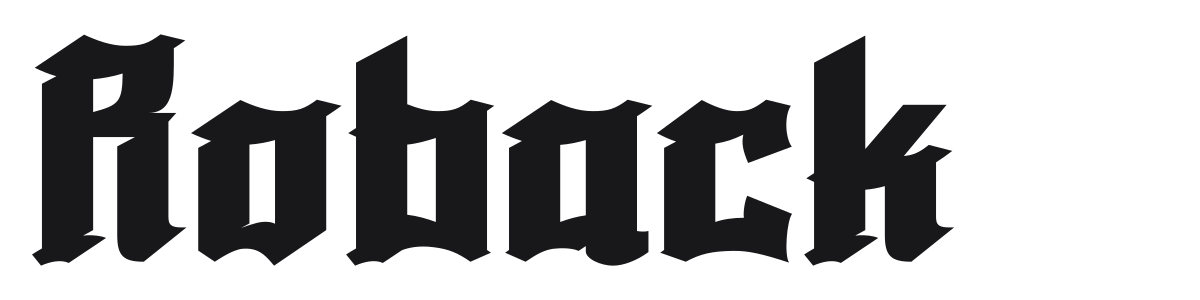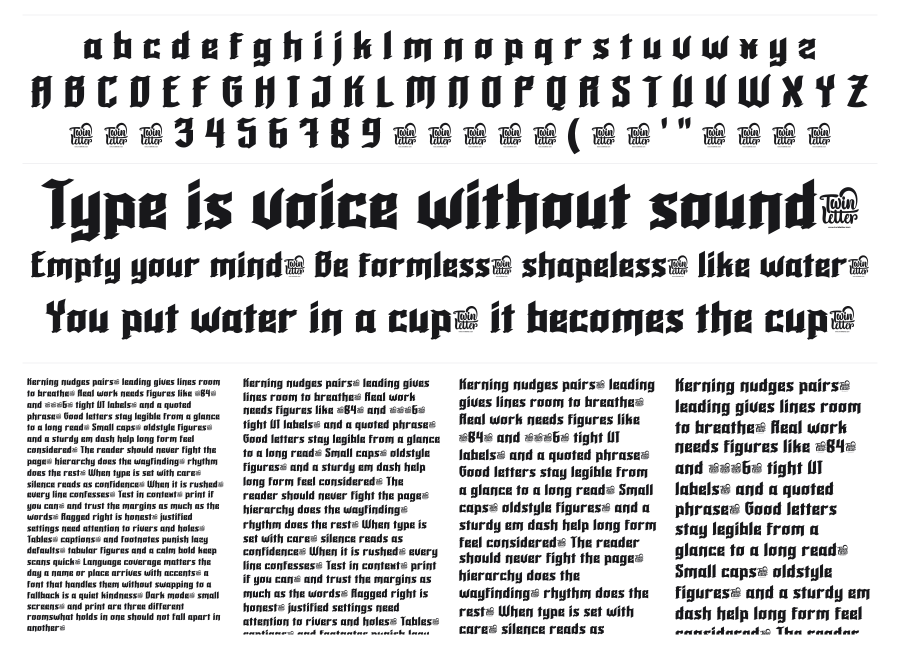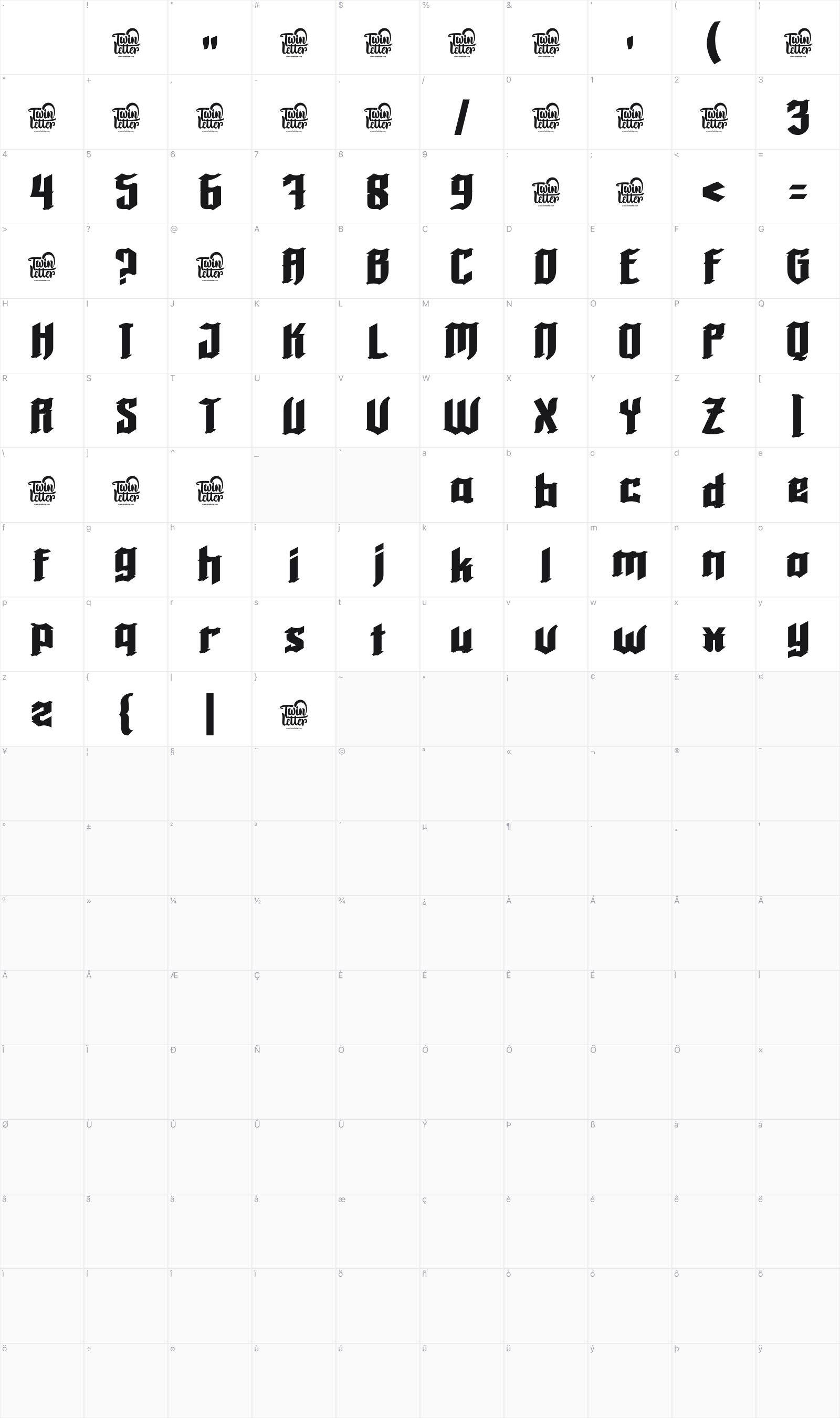
Roback
Roback is a heavy gothic display font with sharp, angular cuts and a bold, aggressive presence rooted in blackletter tradition. The thick strokes and pointed terminals push it firmly into contemporary urban and metal territory rather than strictly historical territory. It commands attention on posters, album covers, and brand marks where impact is the whole point.